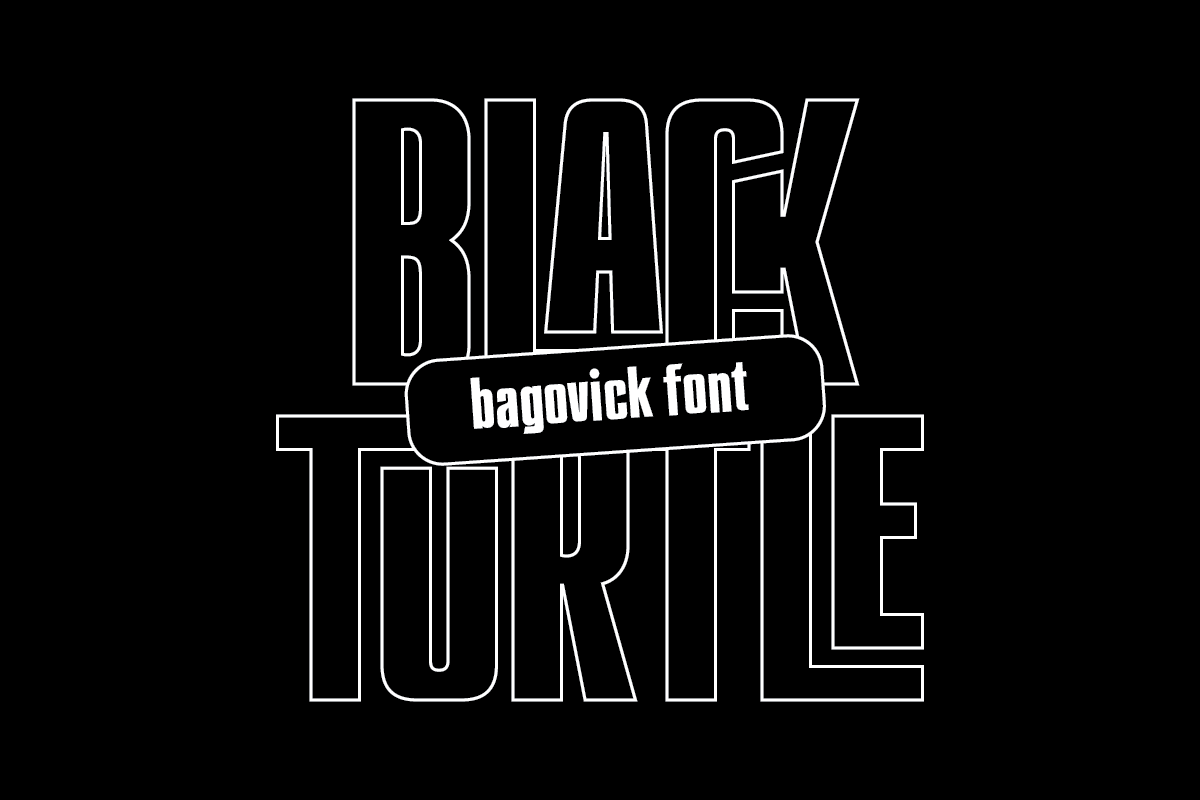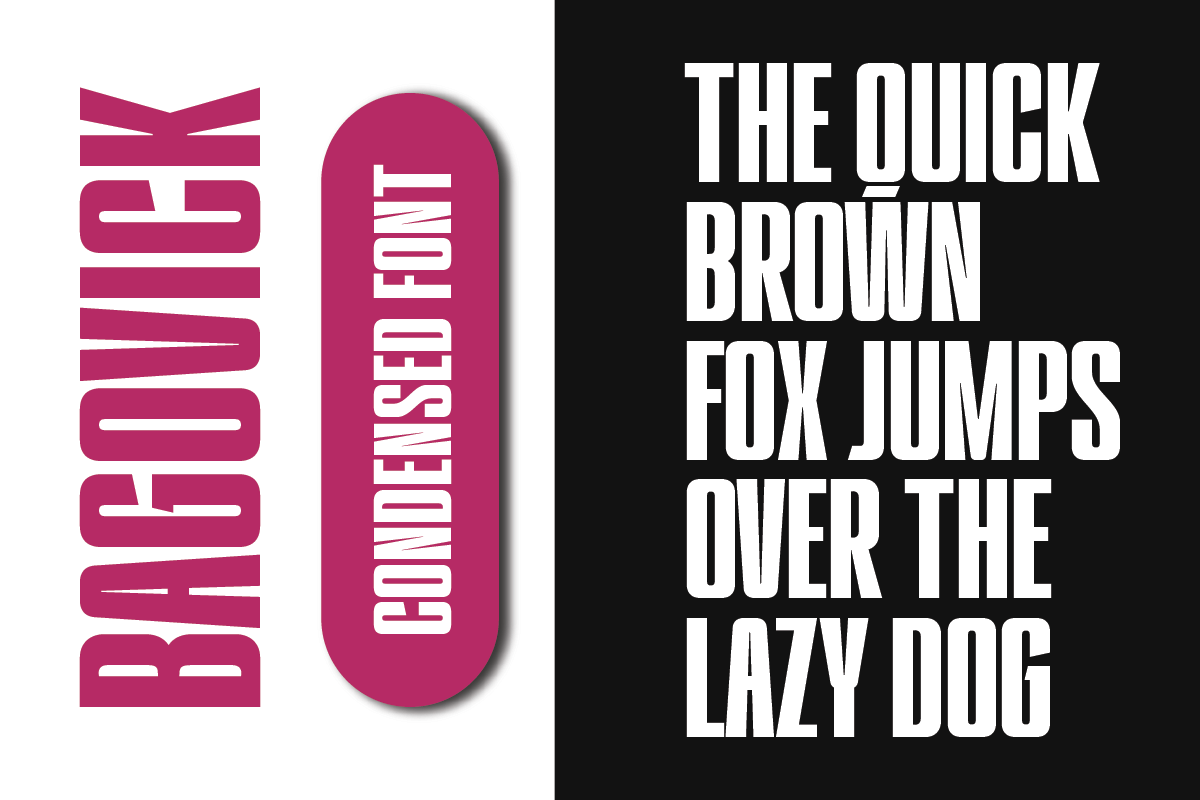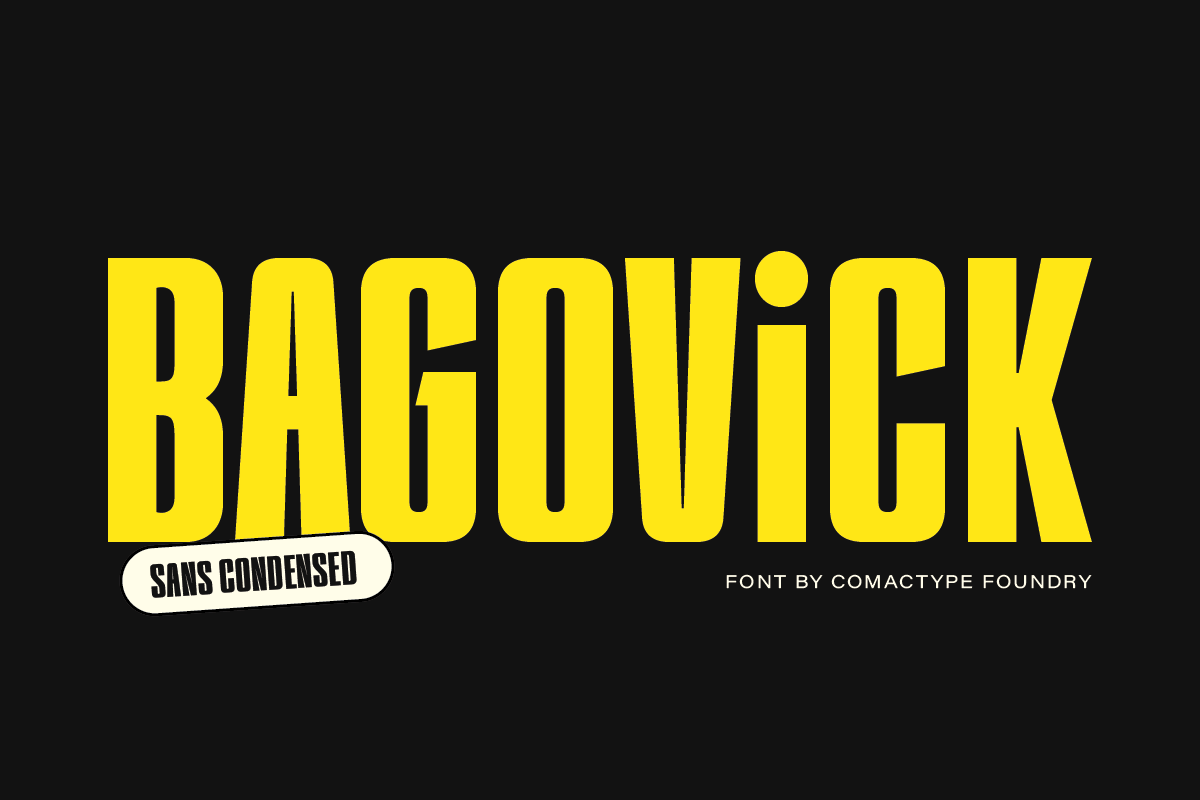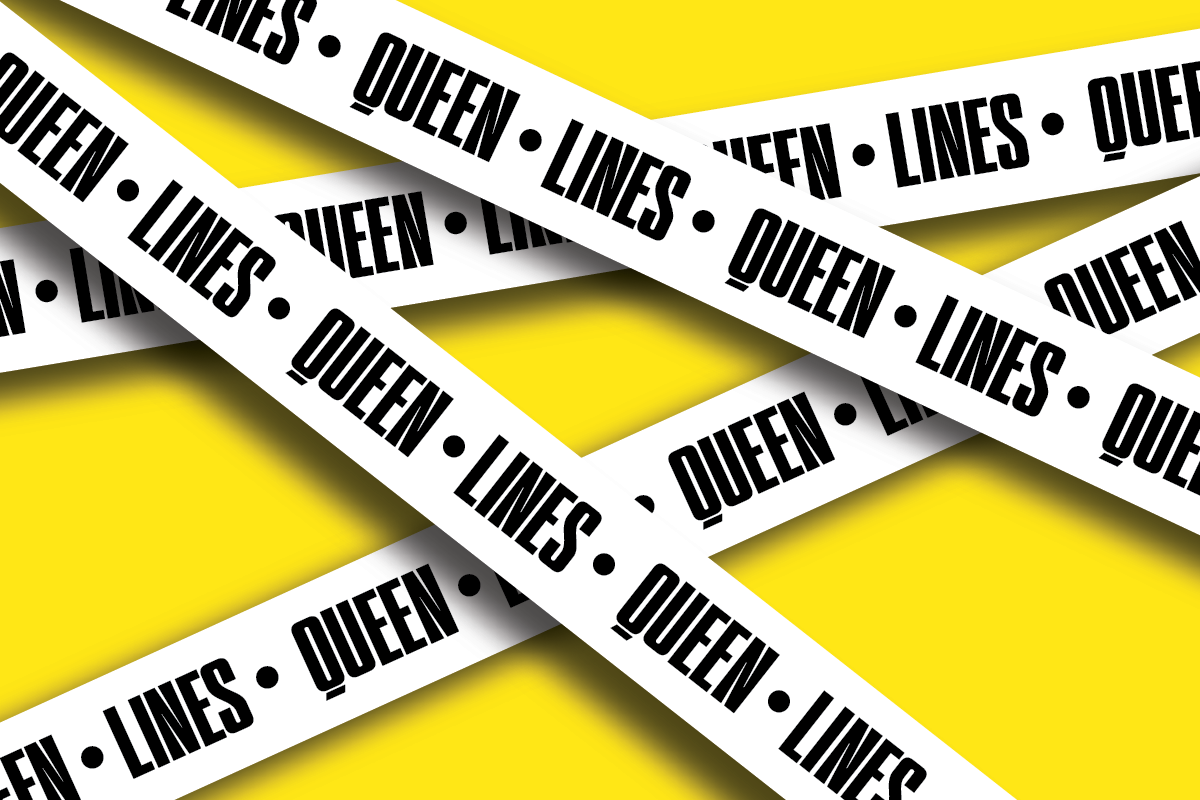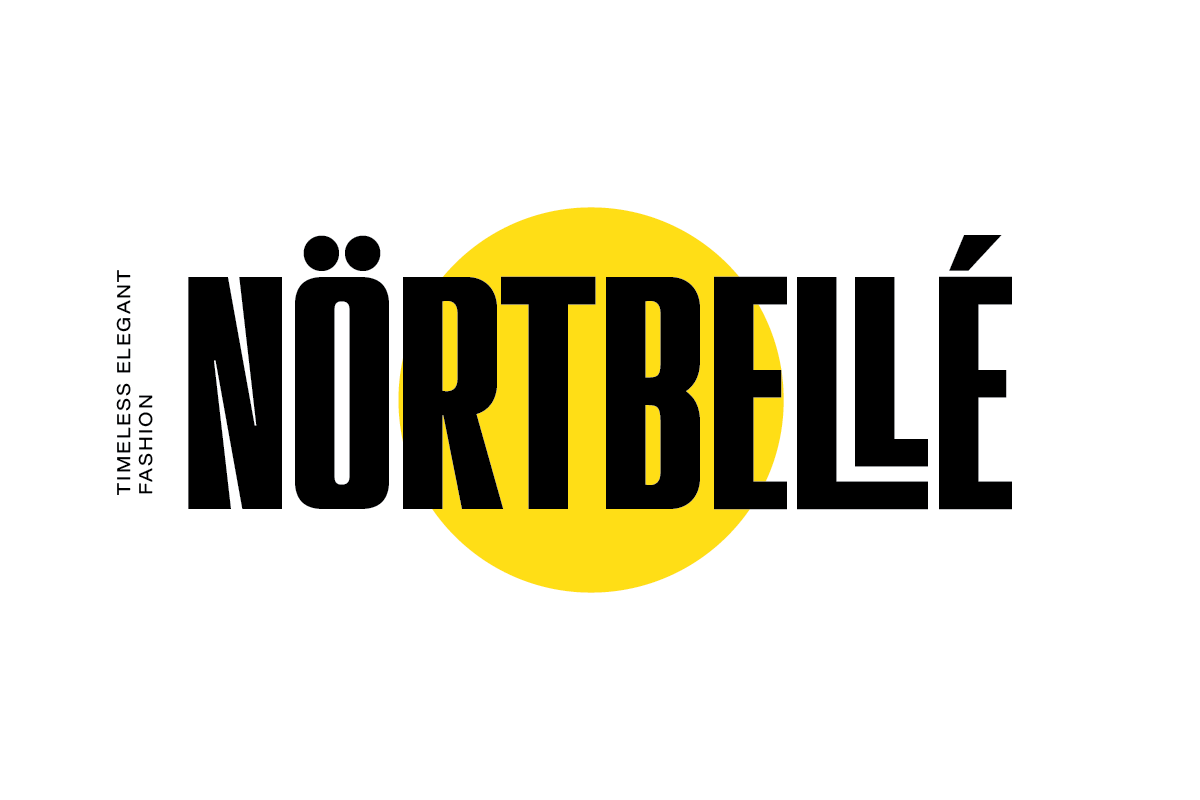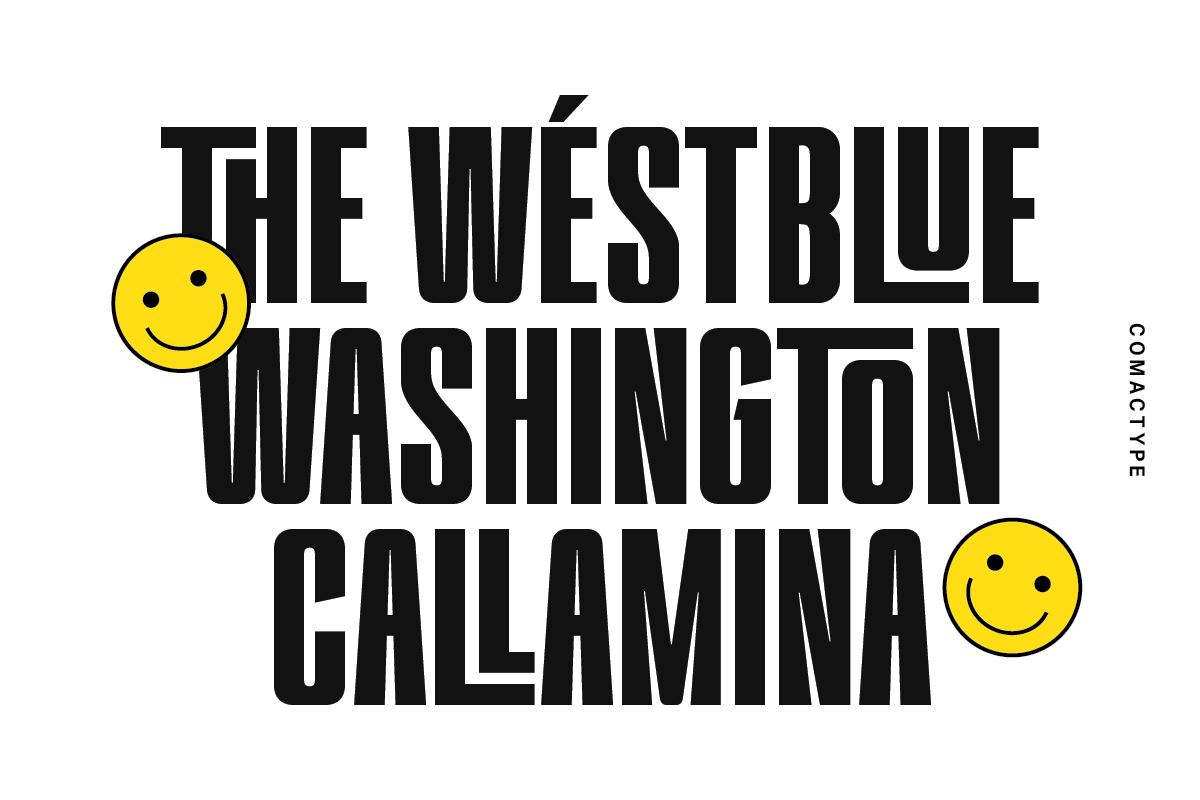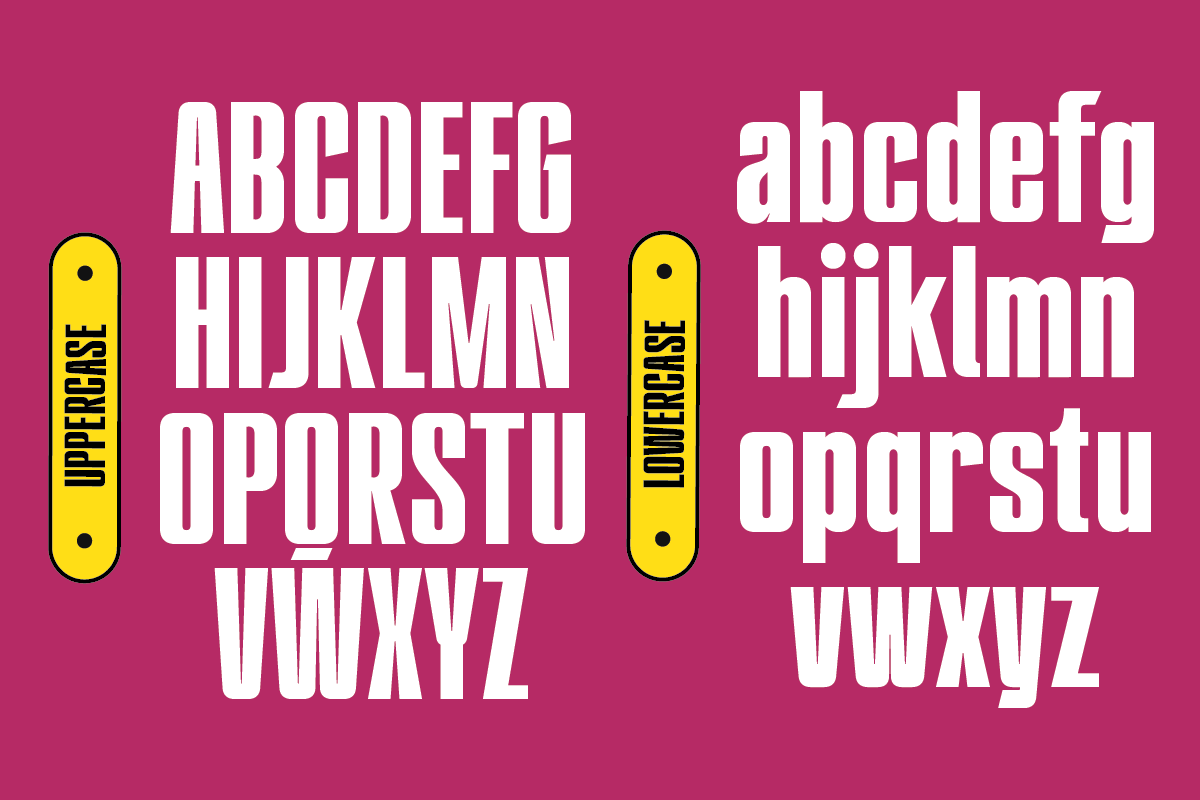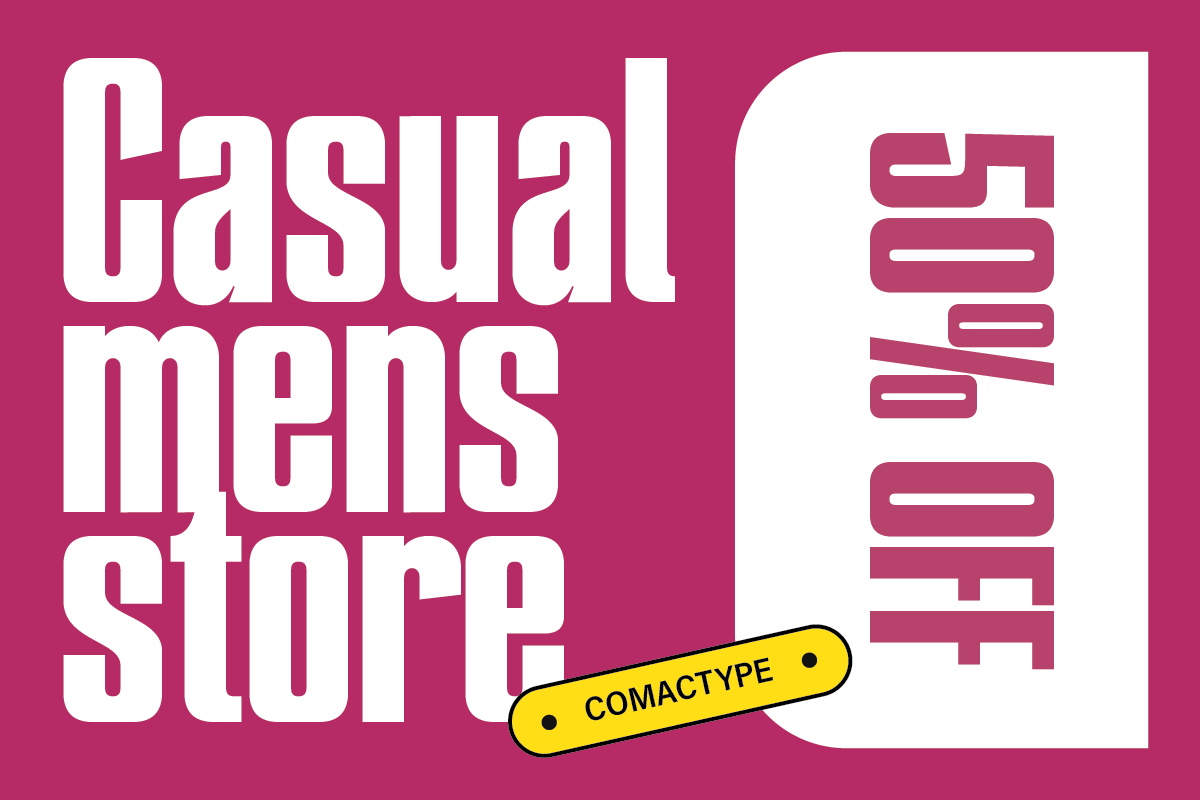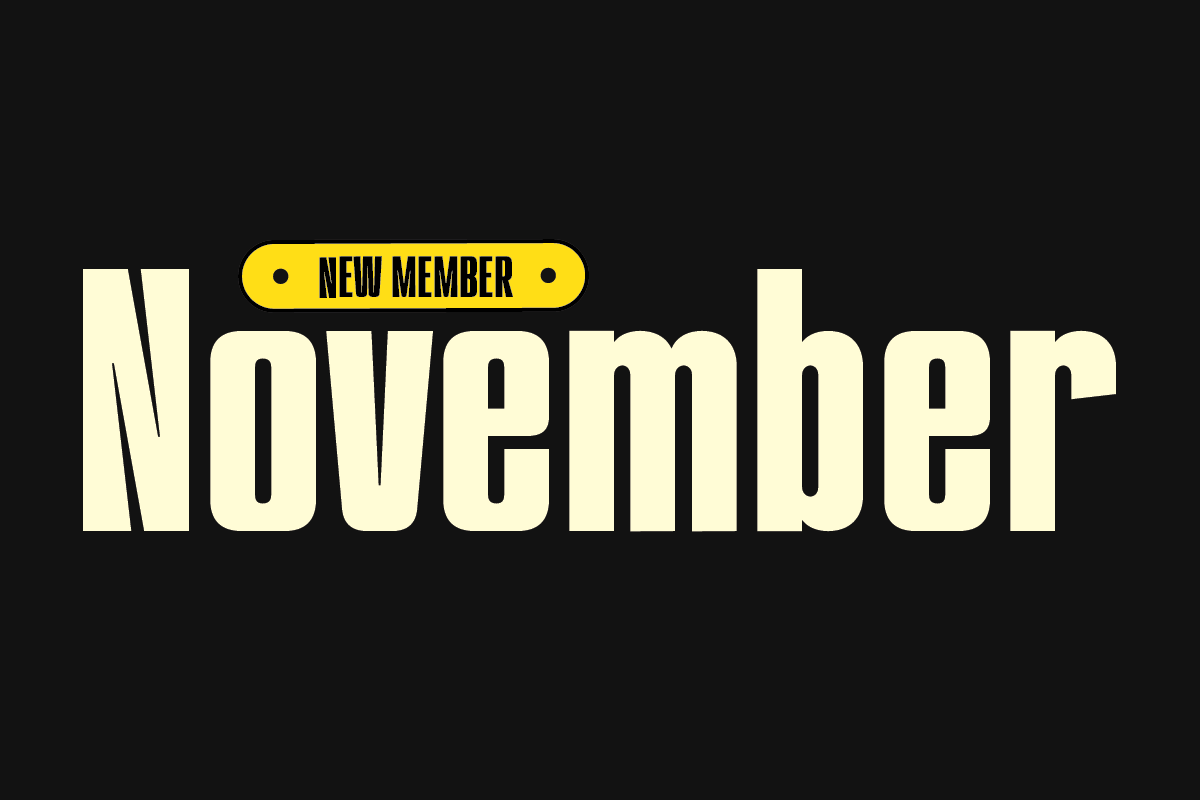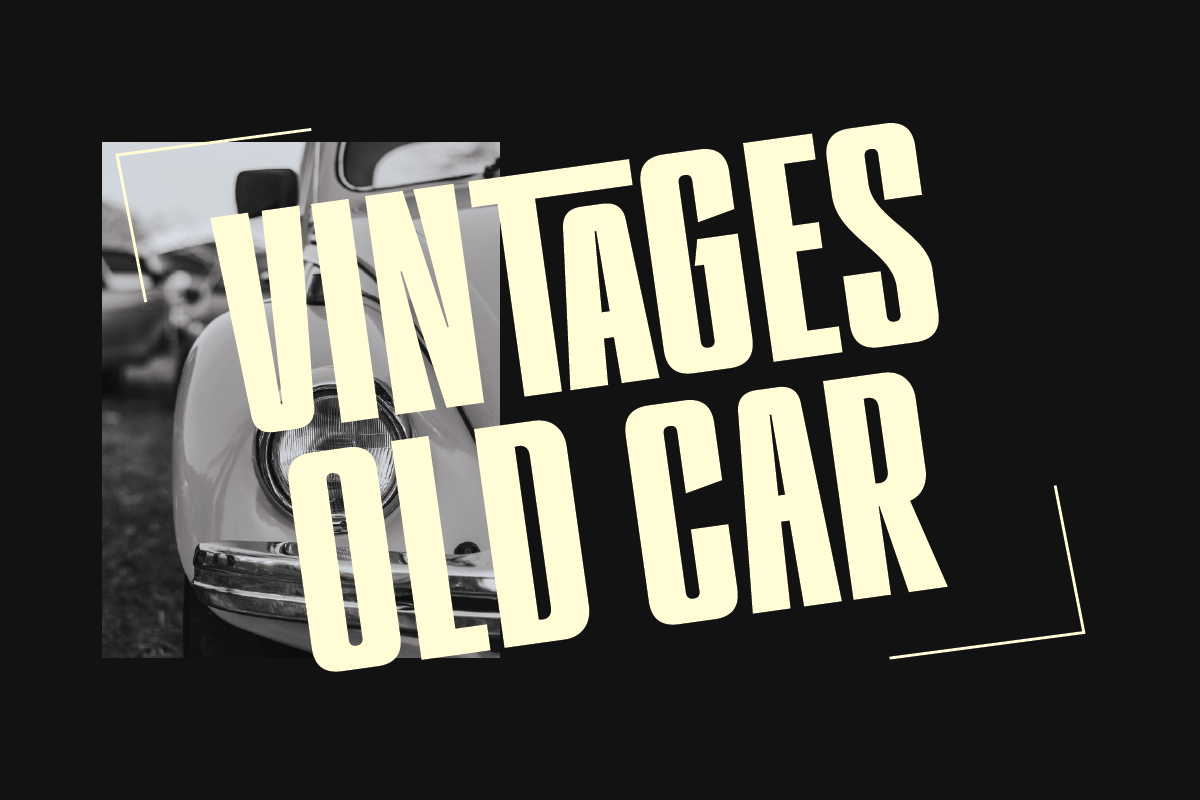
Bagovick - Sans Condensed Font
Bagovick is a condensed sans-serif font that embodies a bold, modern, and expressive design. With its tall and narrow letterforms, this typeface conveys strength while maintaining an elegant aesthetic. Its thick strokes and slightly rounded corners create a visually balanced yet impactful appearance. Designed with meticulous attention to detail, Bagovick features unique ligatures that enhance its typographic character, making it ideal for branding, logos, headlines, posters, and any design project that demands a striking and professional look. Its high visual consistency ensures seamless adaptability across various media while preserving its distinctive identity. As part of the Comactype Foundry collection, Bagovick is a perfect choice for designers seeking a strong, contemporary typeface with high versatility and lasting appeal.